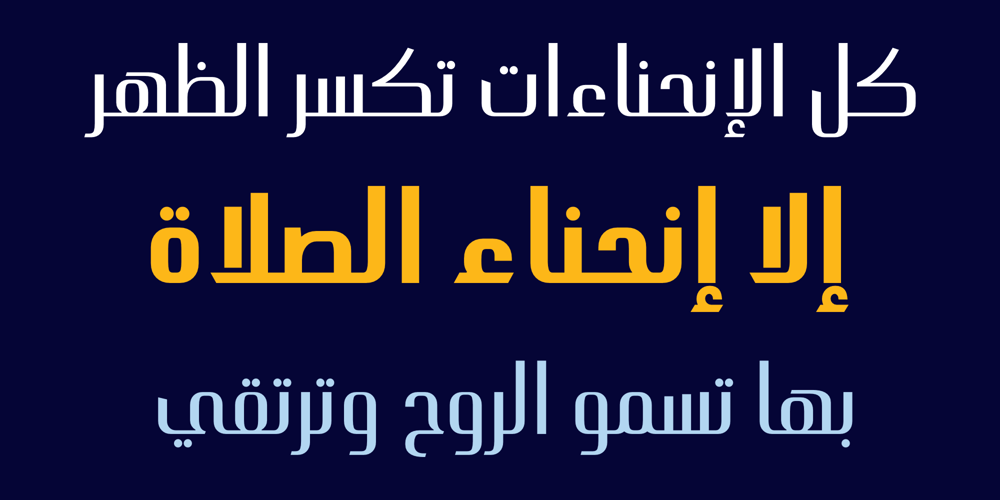
HS Alnasma Font Family was designed by Hasan Abu Afash and published by Hiba Studio. HS Alnasma contains 2 styles and family package options. Hs Alnasma is an Arabic display typeface, under “titles” category. It is useful for book titles, creative designs and modern logos. Also, it is used when a contemporary and simple look is desired that can fit with the characteristics of Latin fonts where horizontal parts are thinner than vertical ones for use in technical and engineering company. The font is based on some modern lines of Kufi calligraphy along with some derived ideas of Latin fonts, maintaining the beauty of the Arabic font and its fixed rates. This font supports Arabic, Persian, Urdu, Kurdish and Pashto and also includes Basic Latin and consisting of two weights (regular and bold) which can add to the library of Arabic and Latin fonts contemporary models that meet with the purposes of various designs for all tastes.